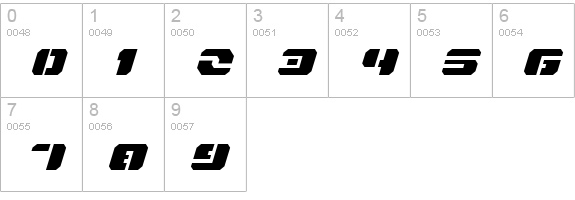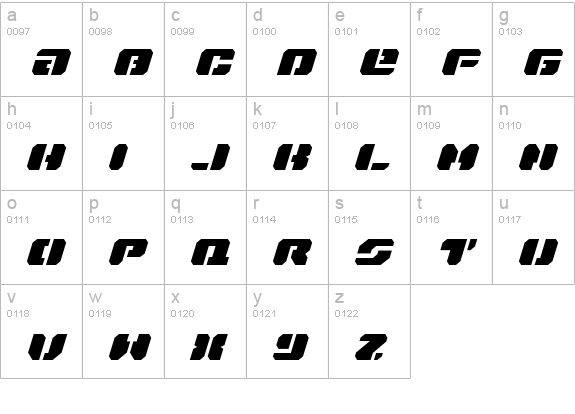
Dan Stargate Expanded Italic is a distinctive, extended-width, italic variant in the Dan typeface family \xE2\x80\x94 well suited to design and typography projects.
Introducing the captivating and stylish Dan Stargate Expanded Italic font! This elegant typeface exudes sophistication and modernity, making it ideal for a wide range of design projects. Its sleek italicized design adds a touch of flair and uniqueness to any text, making it stand out effortlessly. What makes Dan Stargate Expanded Italic font even more attractive is that it is available for free download at FontsMarket.com. Now you can enhance your designs with this stunning font without any cost, allowing you to create professional-looking materials without breaking the bank. Whether you're working on branding, advertising, invitations, or any other creative project, Dan Stargate Expanded Italic font is sure to elevate your designs to the next level. Download it today and experience the magic of this beautiful typeface for yourself!